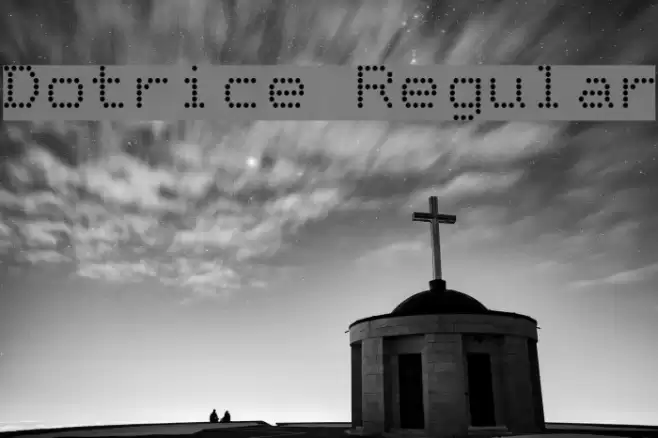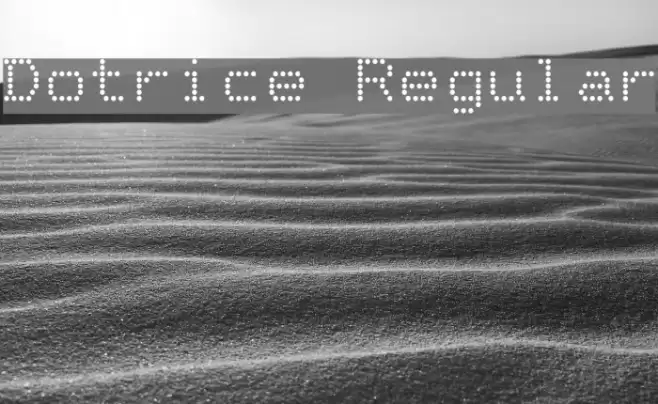
Dotrice Regular Font
Dotrice Regular Description
This font features a unique dotted design where each character is formed by a series of evenly spaced dots. The style is highly distinctive, offering a modern and playful aesthetic that stands out in any design. The uppercase and lowercase letters maintain a consistent dot pattern, creating a cohesive look across the alphabet. Numbers and special characters are also designed with the same dotted style, ensuring uniformity throughout. This font is ideal for projects that require a creative and unconventional approach, such as digital art, posters, or branding materials that aim to capture attention with a bold, graphic look.
A modern, dotted font with a playful and distinctive style from Uncategorized fonts.
- Proposed Projects: Ideal for digital art, posters, branding materials, and creative projects requiring a bold, graphic look.